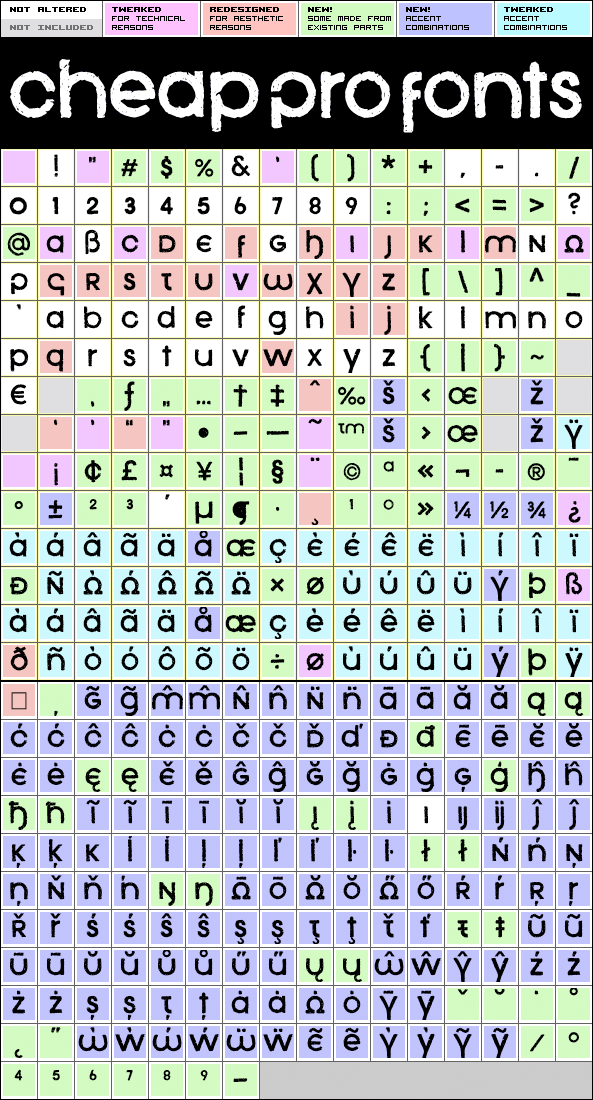
Xenophone Pro
Xenophone Pro by Vic Fieger
Vic Fieger
384 glyphs!
(136 in original)
696 class kernpairs
= 13748 kerning pairs
(none in original)
The letters in Xenophone were created from hand-drawn figures in which coins were traced around to create curves and circles. Some capital letters resembles symbols from the greek and International Phonetic Alphabet.
Xenophone Pro is a professionally reworked font that contains an extended character set for setting text in 65 languages requiring more than the basic A-Z!